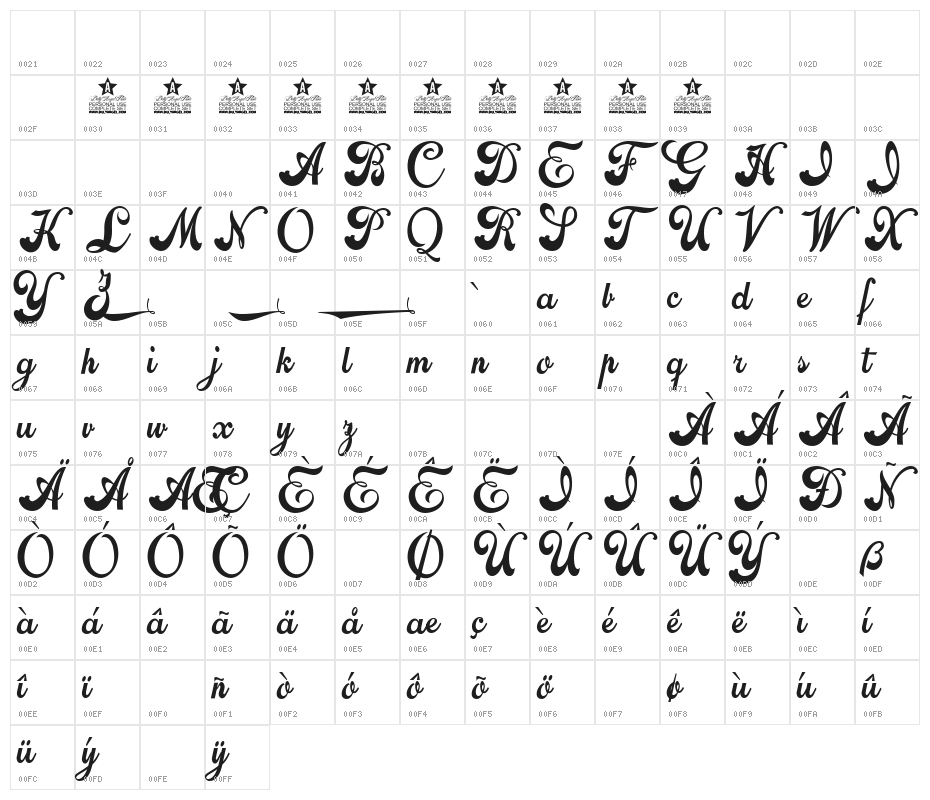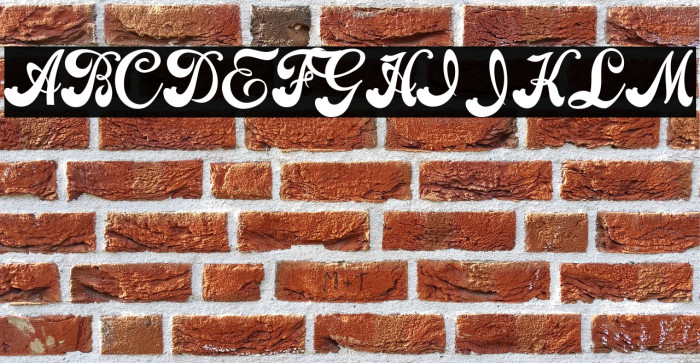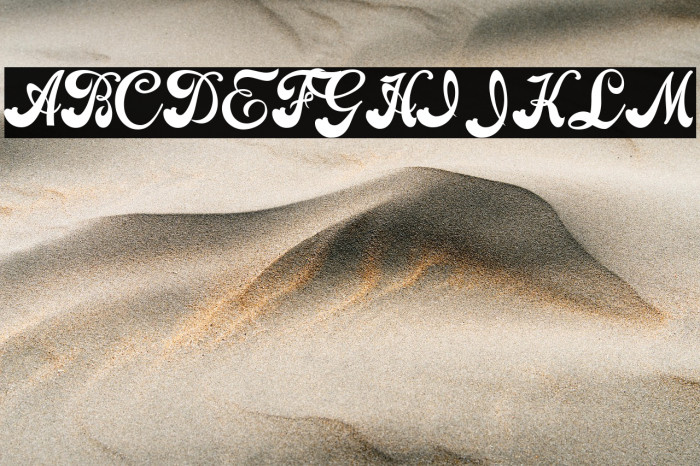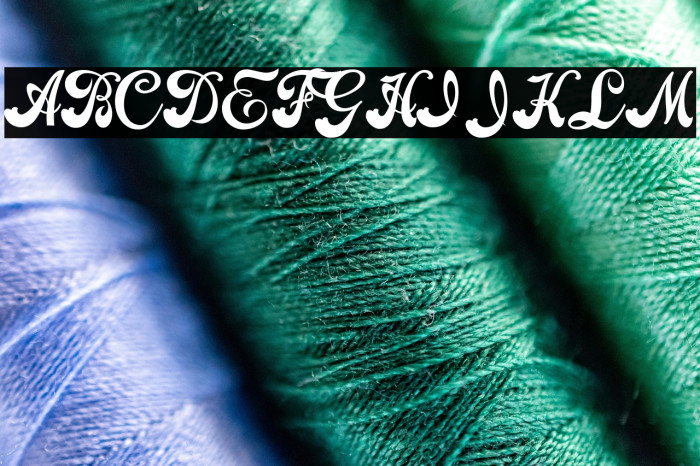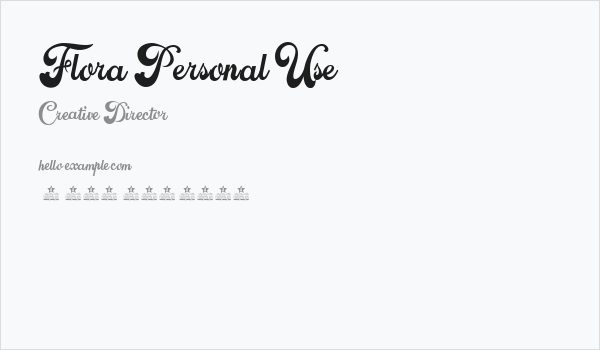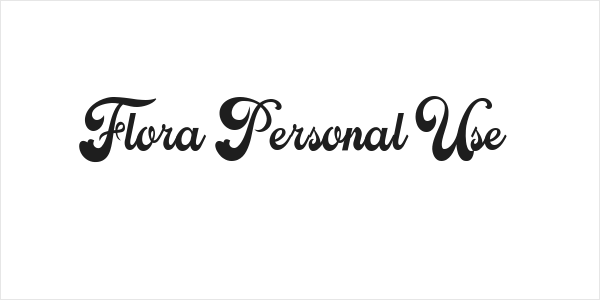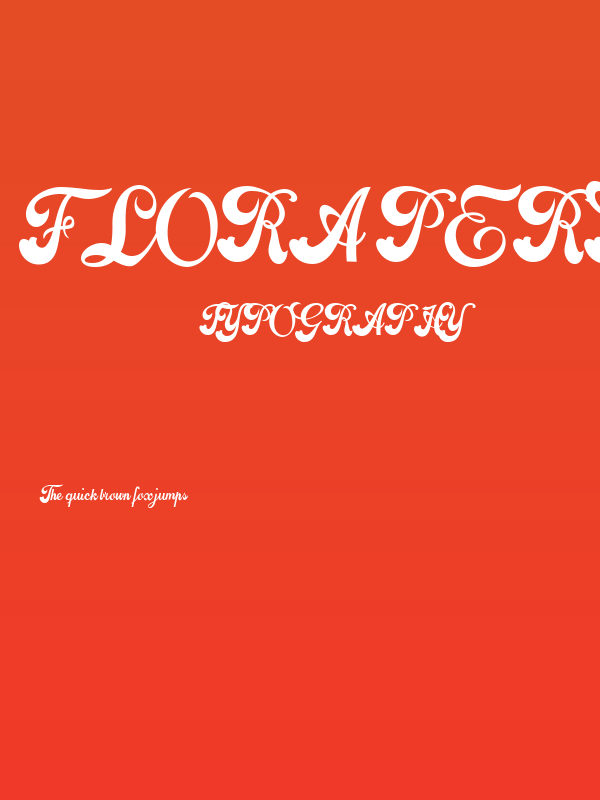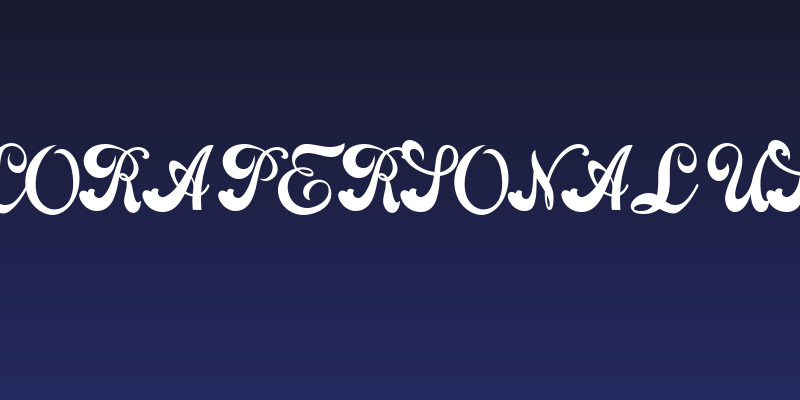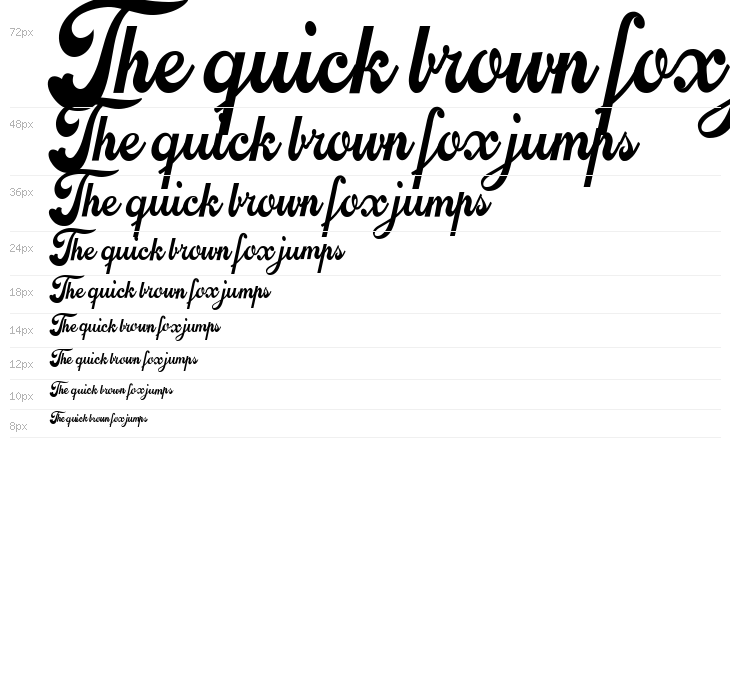
Flora Personal Use Font
Flora Personal Use Description
This font features an elegant and flowing script style, characterized by its smooth, cursive strokes and decorative flourishes. The uppercase letters are particularly ornate, with swirls and loops that add a touch of sophistication. The lowercase letters maintain a consistent flow, making them highly readable despite their decorative nature. The numerals and special characters are designed to match the overall aesthetic, ensuring a cohesive look across all text. This font is ideal for projects that require a touch of elegance and style, such as invitations, greeting cards, or branding materials.
| Use Case | Logos, Invitations, Decorative text |
| Proposed Projects | Ideal for wedding invitations, greeting cards, branding, and elegant packaging. |